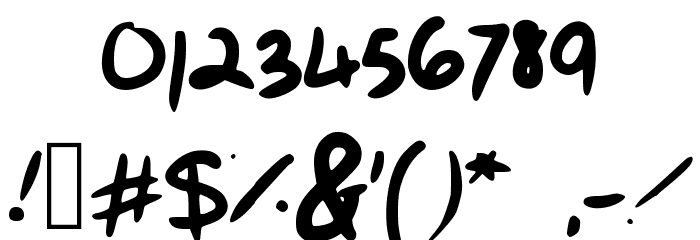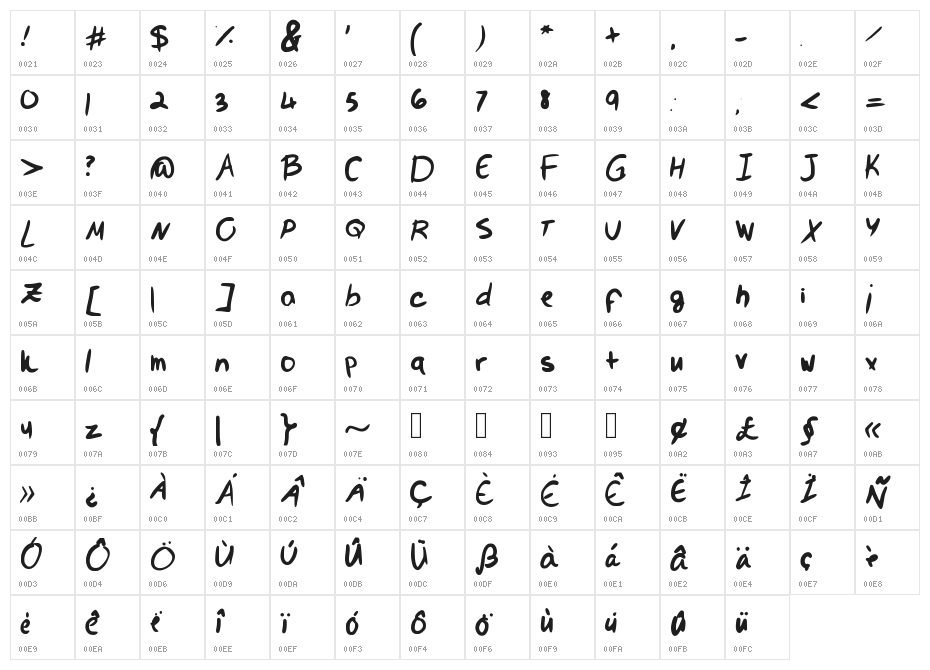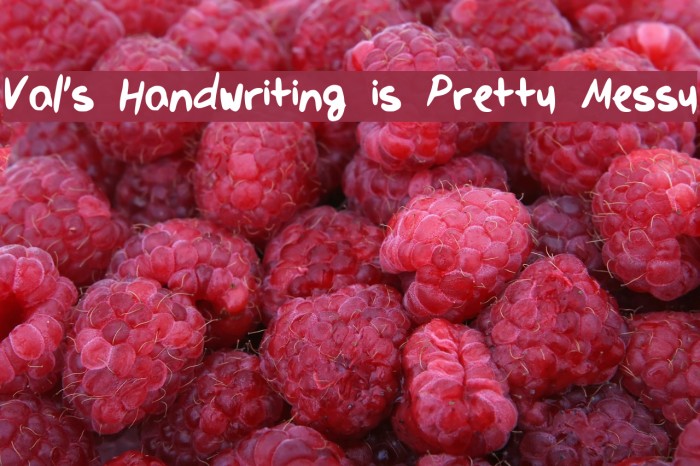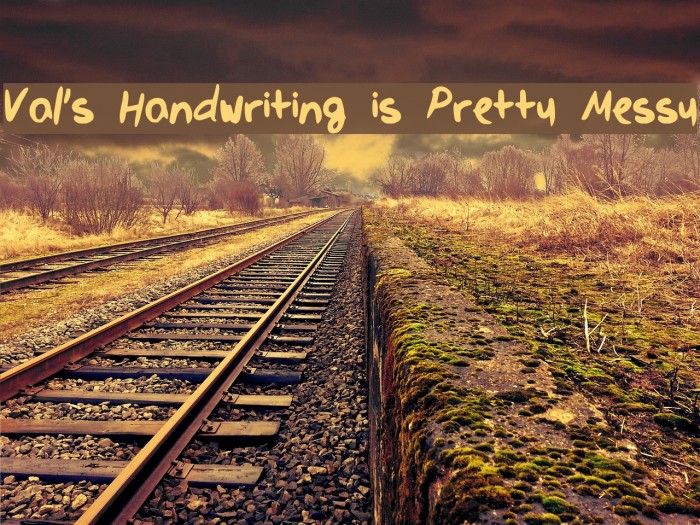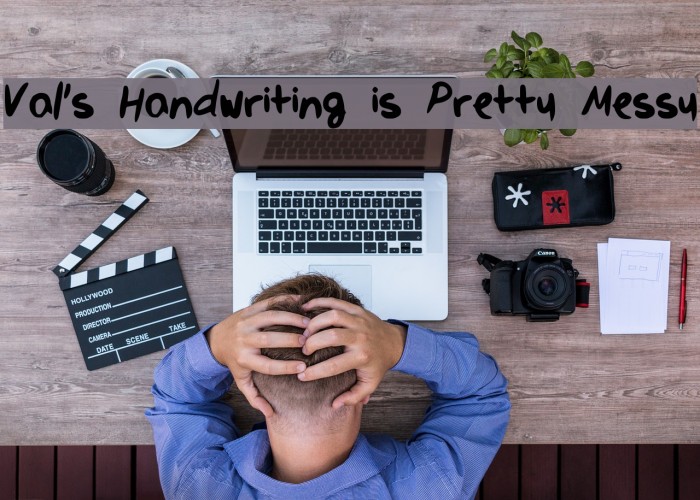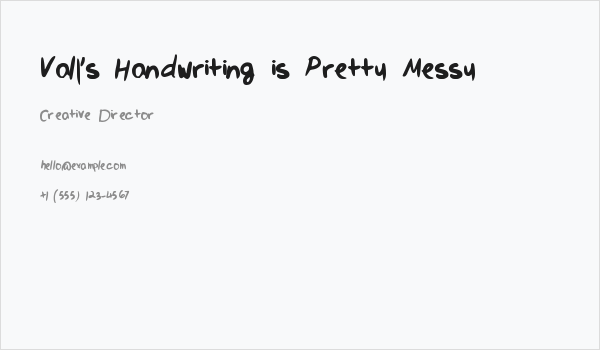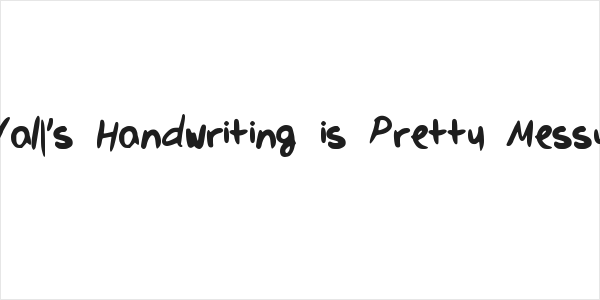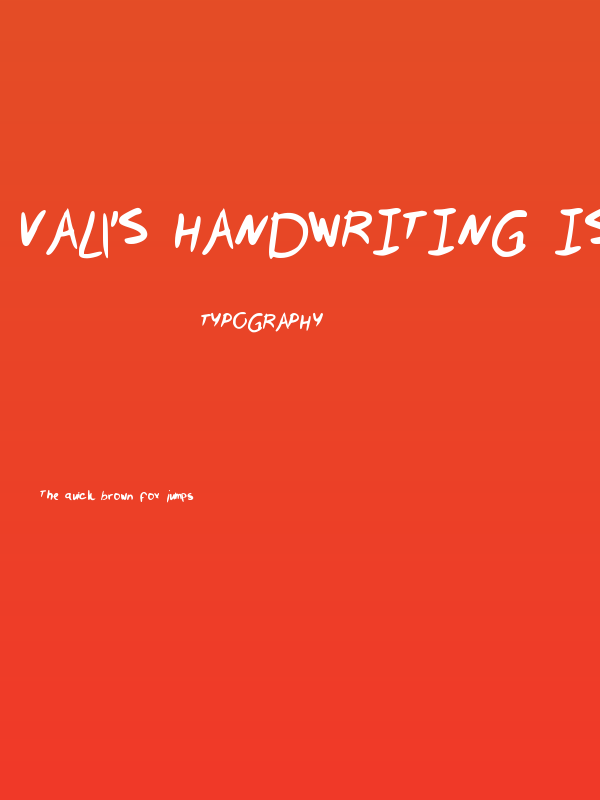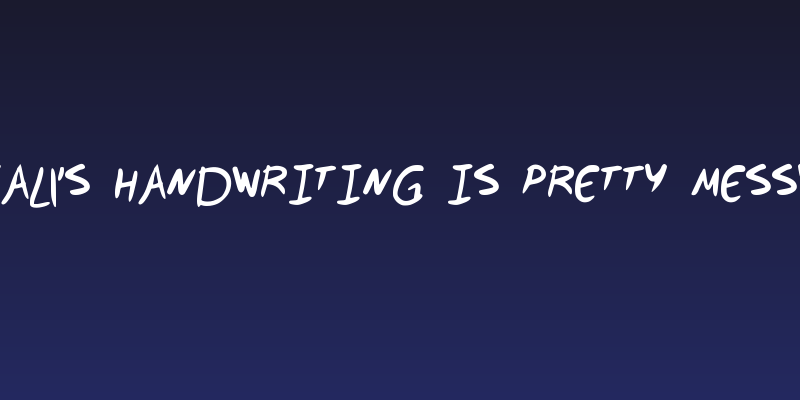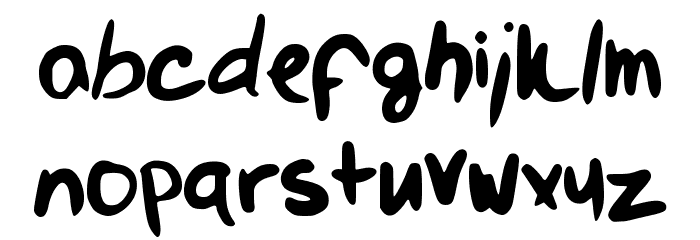
Val's Handwriting is Pretty Messy Font
Val's Handwriting is Pretty Messy Description
This font exhibits a playful and casual handwritten style, characterized by its bold, uneven strokes and slightly irregular letterforms. The uppercase and lowercase letters maintain a consistent flow, with a noticeable slant that adds to its informal appearance. The numbers and special characters follow the same whimsical design, making the font suitable for creative and fun projects. Its boldness ensures readability while the irregularities give it a unique personality, perfect for conveying a sense of spontaneity and creativity.
| Use Case | Headlines, Logos, Informal text |
| Proposed Projects | Ideal for greeting cards, children's books, playful branding, and informal invitations. |